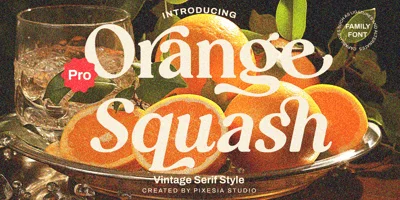
Orange Squash Pro Font
Orange Squash Pro Font is perfect for dynamic sports clubs, energetic fitness centers, vibrant juice bars, professional athletic training, high-energy workout programs, competitive sports leagues, active lifestyle brands, vitamin supplement marketing, energy drink packaging, sports nutrition companies, athletic performance brands, and professional athletic achievement communications.
This font is exciting because it captures the explosive energy and competitive intensity of squash courts, featuring powerfully dynamic letterforms that bounce across the page with the same kinetic force and athletic precision found in professional squash players who demonstrate incredible speed, agility, and strategic thinking while maintaining the explosive power needed to dominate fast-paced rallies in one of the world's most demanding racquet sports. The athletically crafted character design embodies both the rapid-fire intensity of competitive squash and the vibrant energy of fresh orange juice that fuels athletic performance, creating typography that feels both professionally athletic and energetically refreshing. Each letter demonstrates the kind of explosive power and athletic precision that transforms ordinary text into high-energy declarations worthy of professional sports and competitive athletic achievement.
The Orange Squash Pro Font family includes multiple weights from regular to bold, with corresponding italic styles optimized for dynamic athletic applications, and comprehensive character sets featuring sport-inspired numerals, energetic punctuation marks, and design elements reminiscent of racquet sports equipment, energy bursts, and athletic performance graphics. Advanced versions may offer additional stylistic variants with enhanced dynamic effects, alternate characters that create explosive athletic connections, and energetic ornaments that celebrate the intensity and professionalism of competitive sports and athletic excellence.
Whether you're developing athletic branding materials, creating high-energy sports marketing, or designing competitive sports content, Orange Squash Pro Font provides the explosive athleticism and professional energy your project needs to connect with audiences who appreciate competitive sports, athletic excellence, and the high-energy lifestyle that comes with serious athletic training and competitive achievement. This typeface transforms ordinary text into athletic declarations that honor both the intensity of competitive sports and the energizing power of athletic achievement. The font's athletic character makes it essential for sports organizations and fitness brands that celebrate competitive excellence and high-energy athletic performance. Professional athletes and sports marketing specialists will appreciate how this font brings authentic athletic intensity to their work with its genuinely dynamic and professionally energetic character that plays to win.